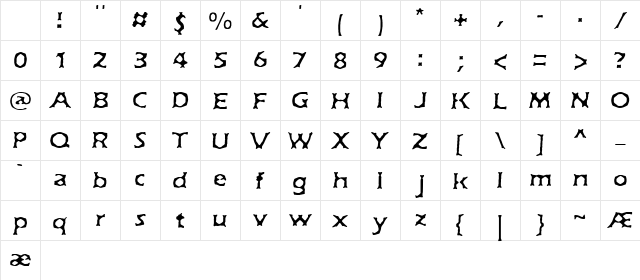
Complete Jekyll (BRK) Regular glyph index. Displaying only characters natively supported by Jekyll (BRK) Regular font.
Jekyll (BRK) is a composed and adaptable typeface that performs quietly and consistently across a wide range of design contexts.